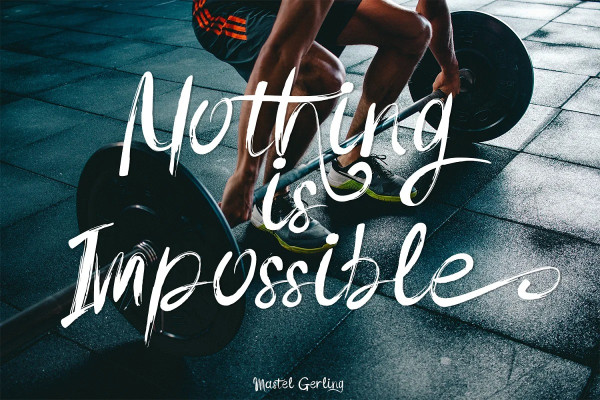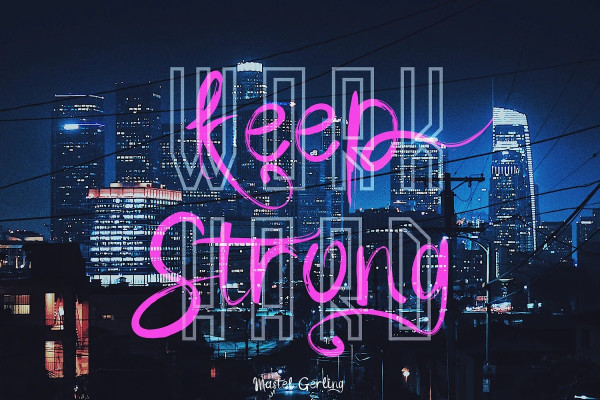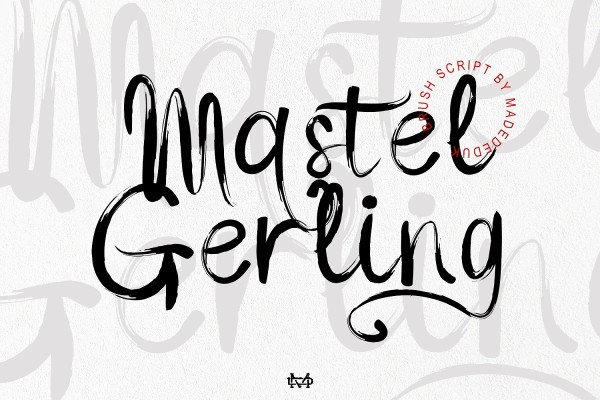
Mastel Gerling Font
Mastel Gerling Font is a modern handwritten Brush. This font perfect for poster design, book covers, merchandise, fashion campaigns, newsletters, branding, advertising, magazines, greeting cards, album covers, and quote designs and more.